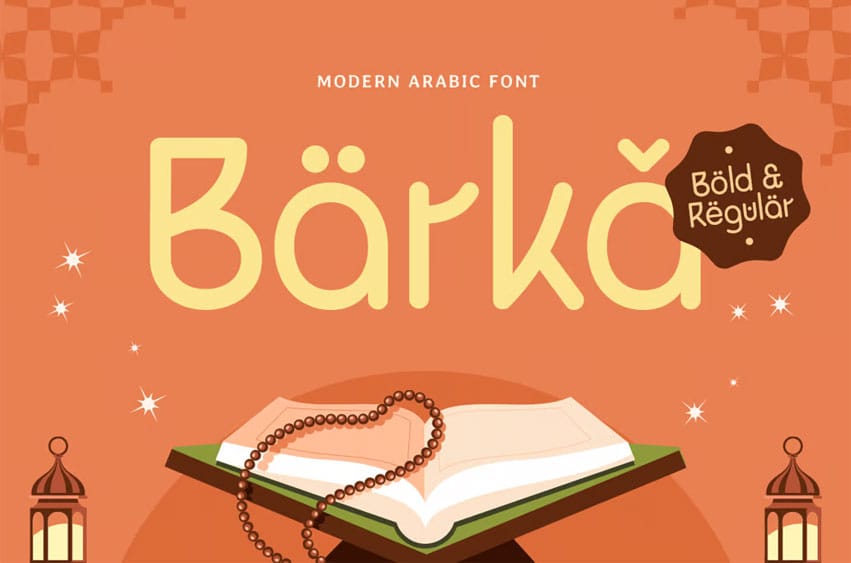
Barka Font A Modern Take on Arabic Typography. Barka is a modern Arabic font that blends tradition with contemporary design. Inspired by elegant Arabic calligraphy, this font features smooth curves and well-balanced letterforms, making it suitable for both digital and print projects. Whether you’re working on an Islamic event poster, a Ramadan campaign, or luxury branding, Barka brings sophistication and cultural depth to your designs.
Versatile for Various Design Needs
Designed for versatility, Barka excels in multiple creative applications. From high-end packaging and fashion branding to editorial headlines and product labels, this font enhances any design with its refined aesthetics. Its clean yet expressive style makes it easy to pair with both Arabic and Latin fonts, ensuring flexibility in multilingual projects.
Elegant, Stylish, and Timeless
Barka is more than just a font—it’s a visual statement. With its sleek lines and artistic flow, it is perfect for Islamic-themed projects, luxury brand identities, and elegant typography compositions. Whether you need a font for professional marketing materials or personal creative projects, Barka delivers an impressive and timeless touch.
Barka – Modern Arabic Font Features:
- Alternates Characters Ready
- Available in 2 Weights: Regular & Bold
- Punctuation, Number, and Symbol
- Uppercase and Lowercase
- Opentype Features